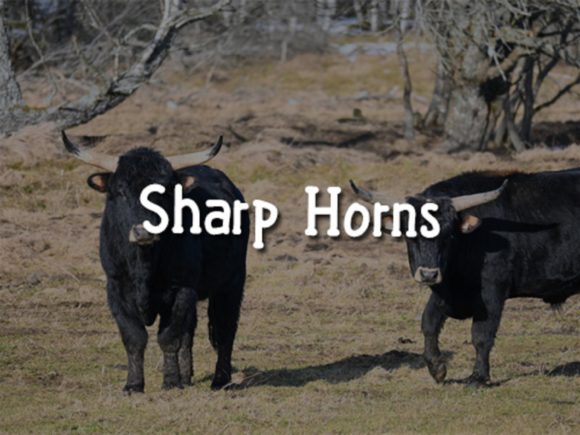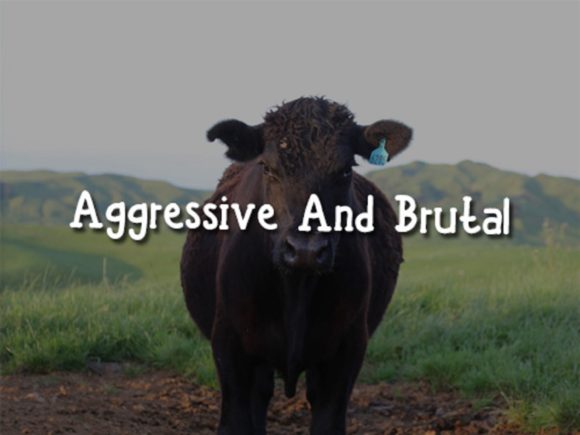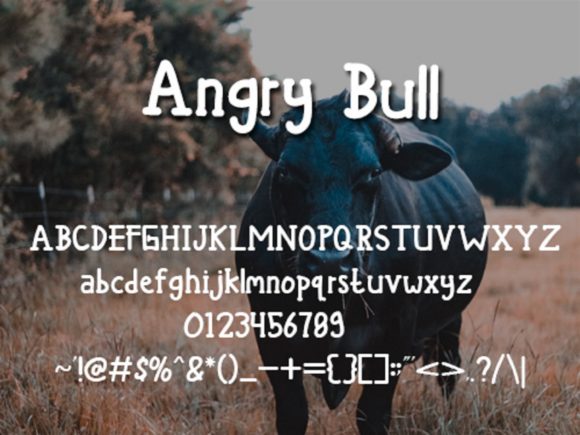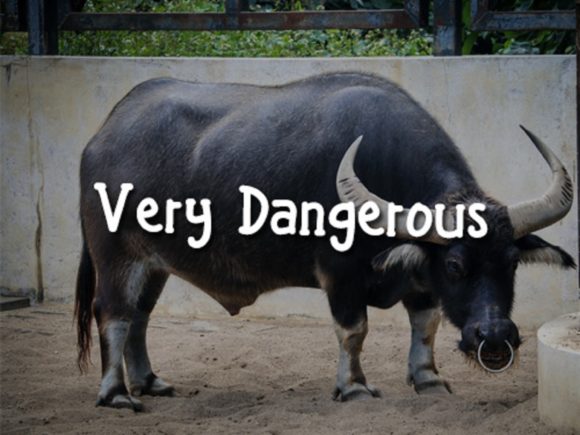
The Angry Bull Font: A Game-Changer for Your Casual Designs
I’ll never forget the time I was working on a project for a trendy clothing brand, and I just couldn’t find the right font to match their laid-back vibe. The client wanted something that would appeal to a young audience, but still look professional enough to represent their brand. That’s when I stumbled upon the Angry Bull font, and it completely transformed my design.
As soon as I saw it, I knew I had found the perfect fit. The Angry Bull font is a simple, cool, and trendy display font that’s perfect for adding a touch of personality to your casual or informal designs. In this article, I’ll share my honest review of the font, provide a practical guide on how to use it, and explore some similar fonts you might like.
- ✨ Unique personality: The Angry Bull font has a distinctive, edgy vibe that’s perfect for designs that need a bit of attitude.
- ✅ Easy to read: Despite its bold and playful style, the font is surprisingly easy to read, even at smaller sizes.
- 💡 Versatile: The Angry Bull font works well for a wide range of designs, from posters and flyers to social media graphics and website headers.
While the Angry Bull font is amazing, it’s not perfect. Here are a few things to keep in mind:
- 🤔 Limited use cases for formal designs: While the font is great for casual designs, it might not be the best choice for more formal projects, like corporate reports or academic papers.
- ⚠️ Some glyphs may not work well at small sizes: As with any font, some of the more intricate glyphs or details might get lost if you use the font at very small sizes.
If you like the Angry Bull font, you might also enjoy these similar fonts:
- Bebas Neue: This font has a similar bold and playful vibe, but with a slightly more elegant feel. Use it for designs that need a bit of sophistication.
- Great Vibes: This script font has a fun and energetic personality, perfect for designs that need a bit of whimsy. Use it for social media graphics or event invitations.
- Rock Salt: This font has a similar edgy feel to Angry Bull, but with a more distressed look. Use it for designs that need a bit of grit and attitude.
- Bramble: This font has a similar natural, hand-drawn feel to Angry Bull, but with a more rustic vibe. Use it for designs that need a bit of earthiness.
The Designer Inspiration Behind Angry Bull
The Angry Bull font was designed with the goal of creating a bold, eye-catching display font that’s perfect for casual designs. The designer wanted to create a font that would add a touch of personality to any design, without being too over-the-top.
Q: What type of designs is the Angry Bull font best suited for?
A: The Angry Bull font is perfect for casual designs, like posters, flyers, social media graphics, and website headers.
Q: Is the Angry Bull font easy to read?
A: Yes, despite its bold and playful style, the Angry Bull font is surprisingly easy to read, even at smaller sizes.